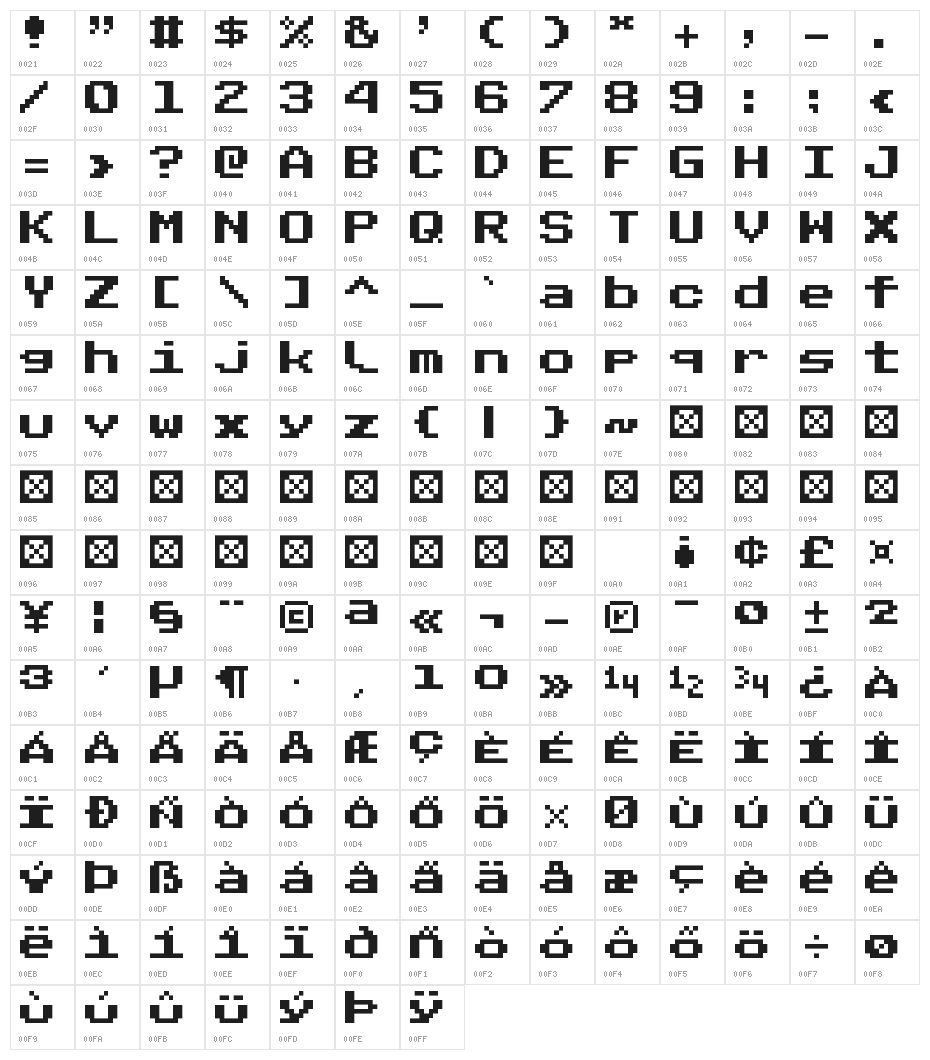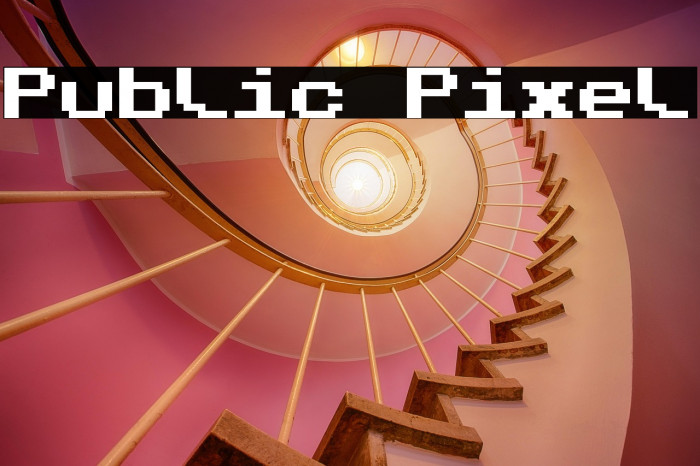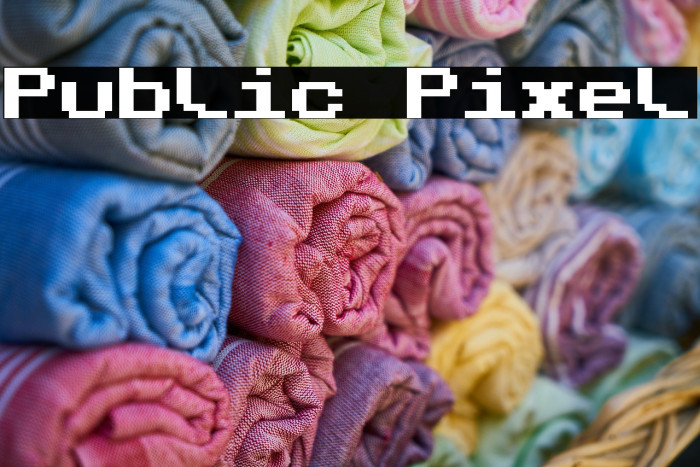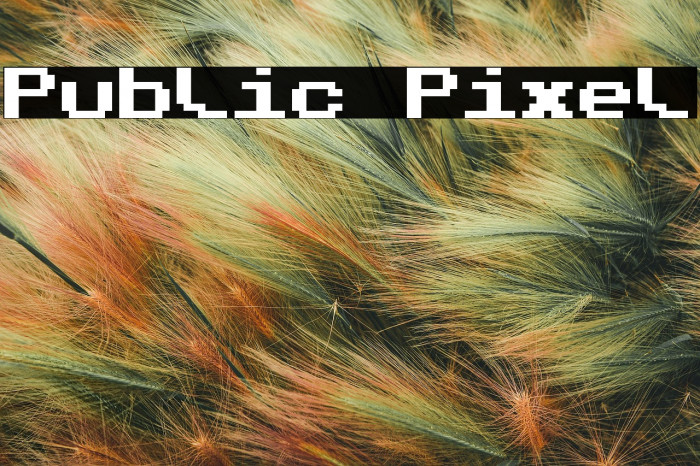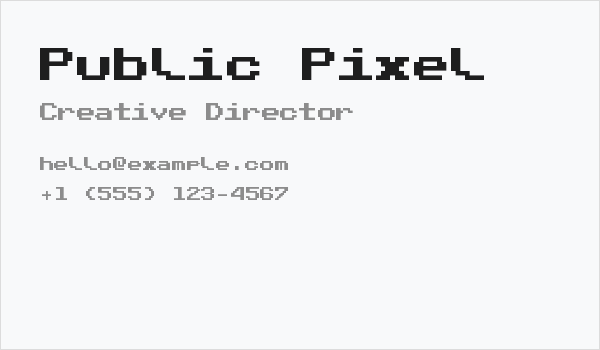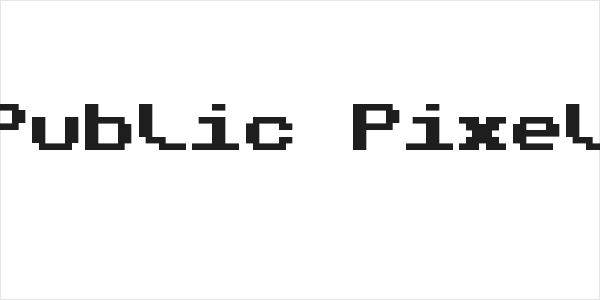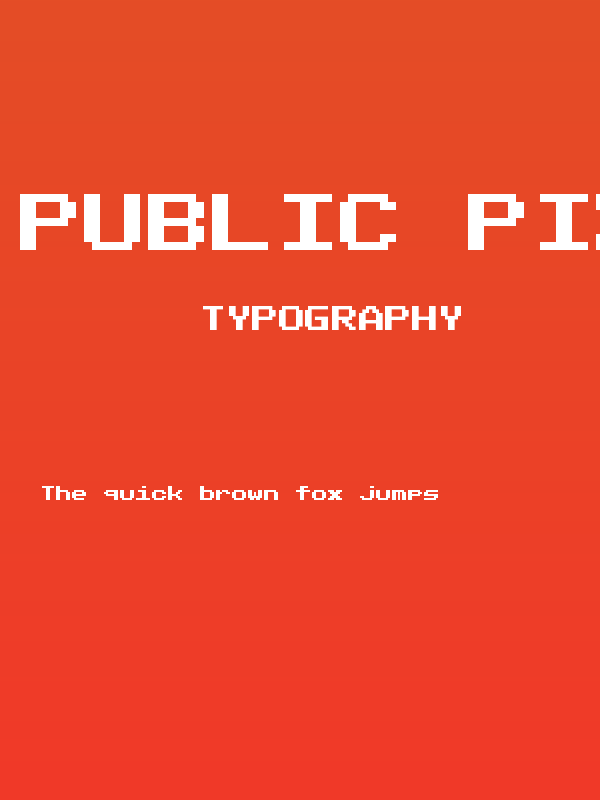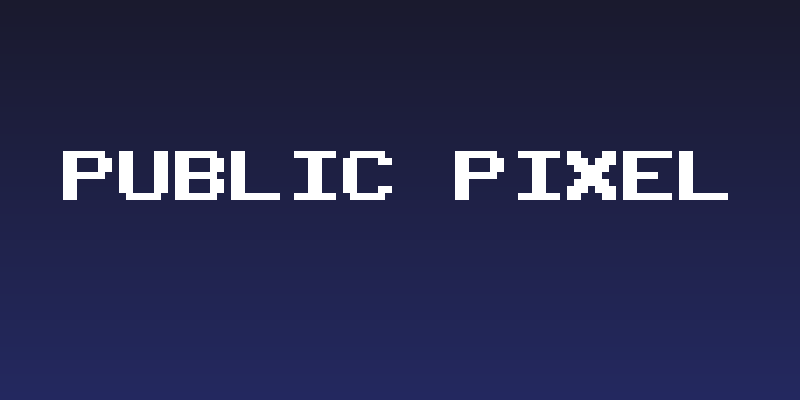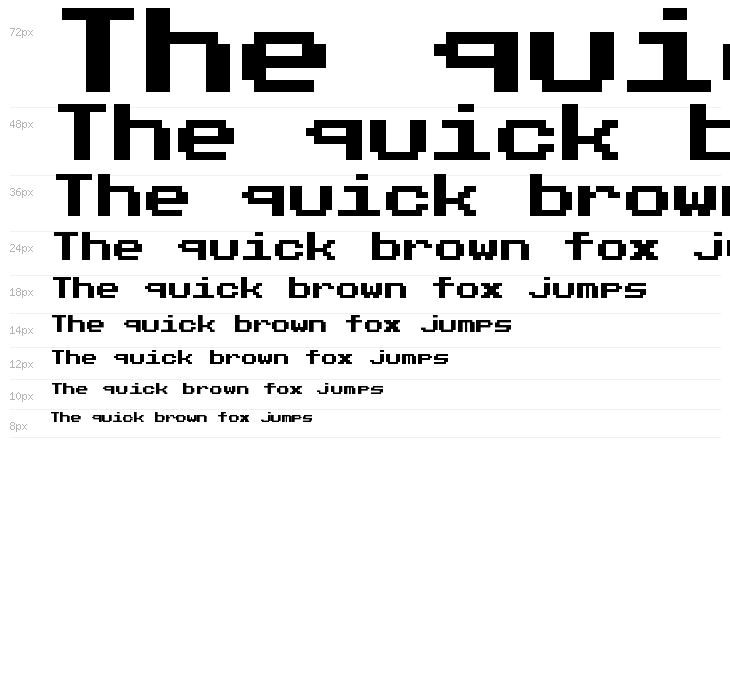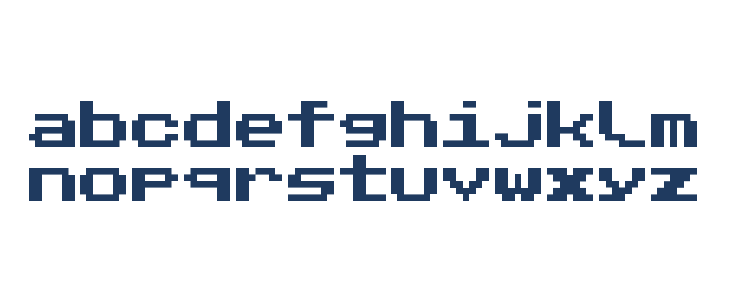
Public Pixel Font
| Stile generale | Retro, Digital |
| Caso d'uso | Logos, Headlines, Digital Art |
| Progetti proposti | Ideal for retro video game designs, digital art projects, pixel art, and nostalgic branding. |